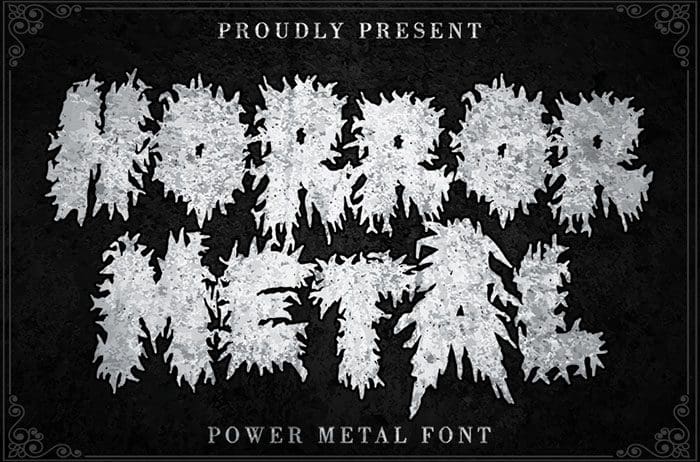
Horror Metal Brush Font
Horror Metal brush font that’s perfect for any Horror or metal designs! As its name suggests, Horror Metal is not a font for the faint-hearted. In fact, using this metal-style display font requires courage and bravery. Designed this font by Thomas Aradea. You can also search more free Brush Fonts. Thanks!